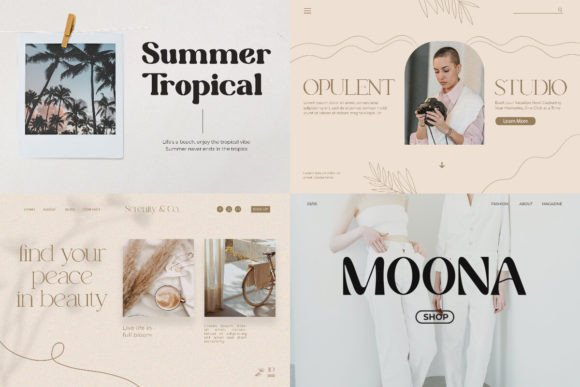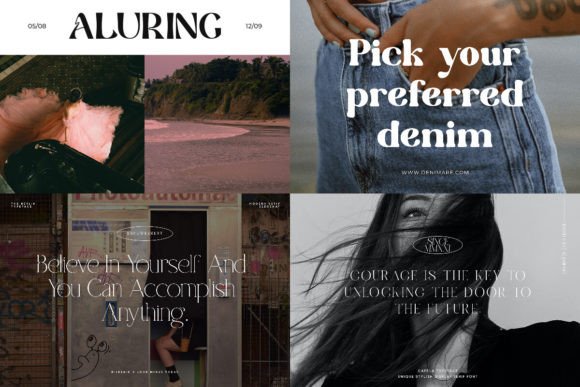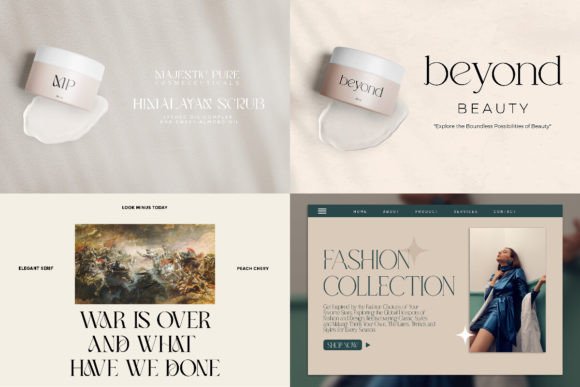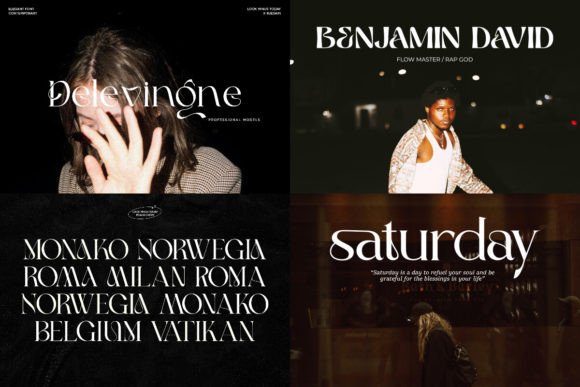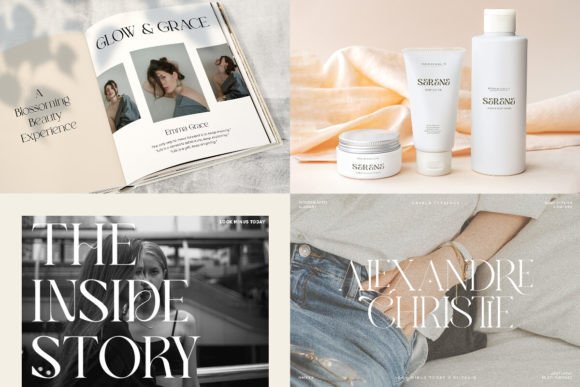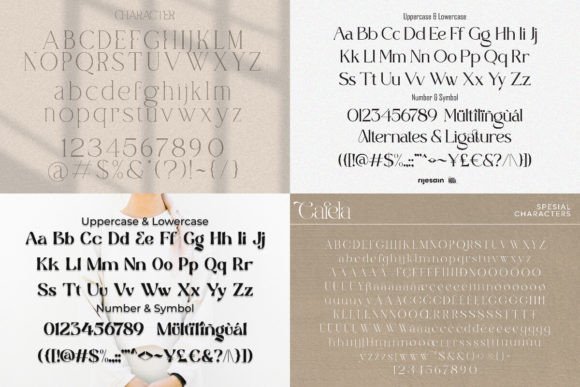
Introduction to Modern Bundles Font
This bundle contains 8 typefaces including 8 high-quality fonts.
All our best selling unique fonts There are Serif Font all with that modern stylish look.
Key Features of Modern Bundles Font